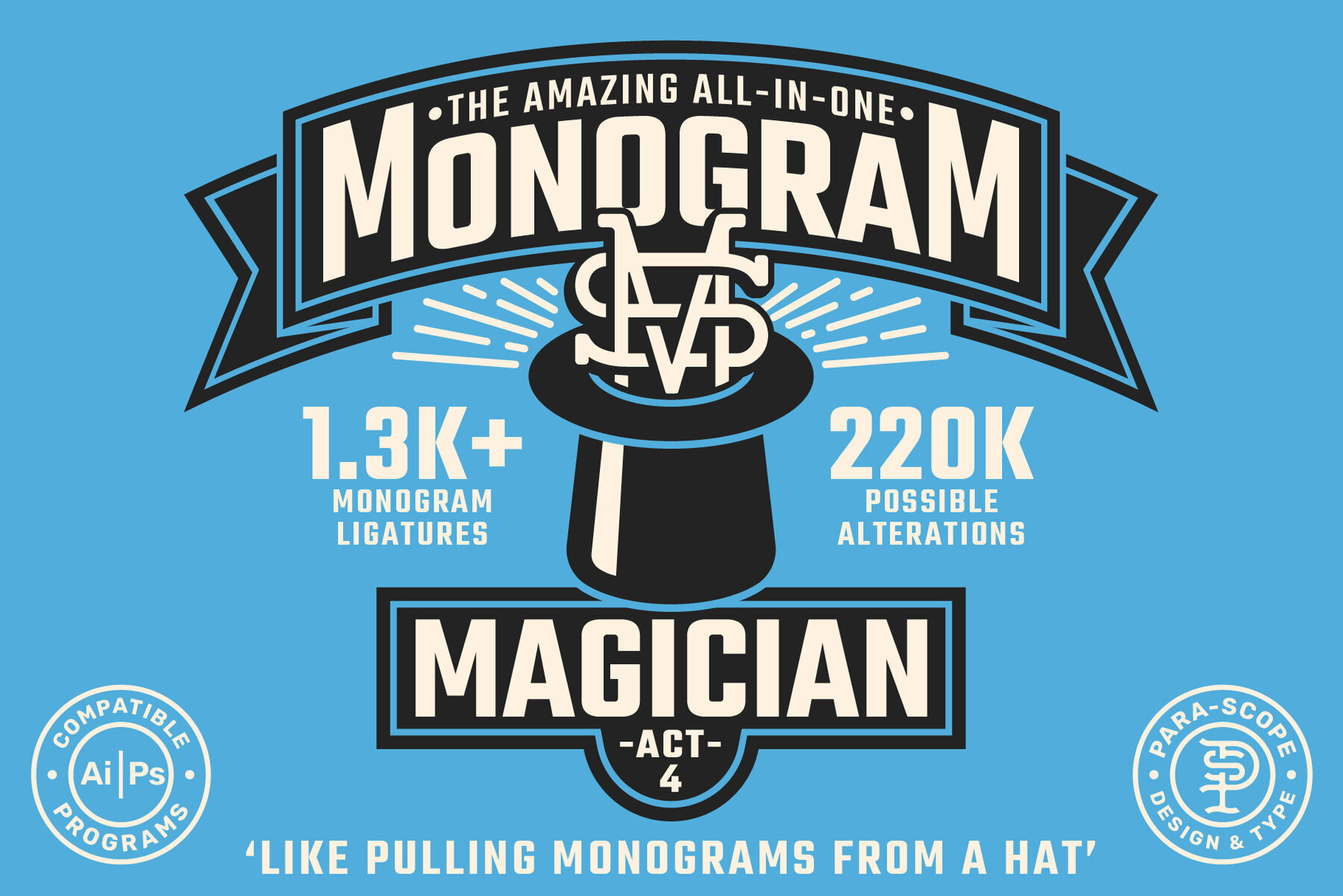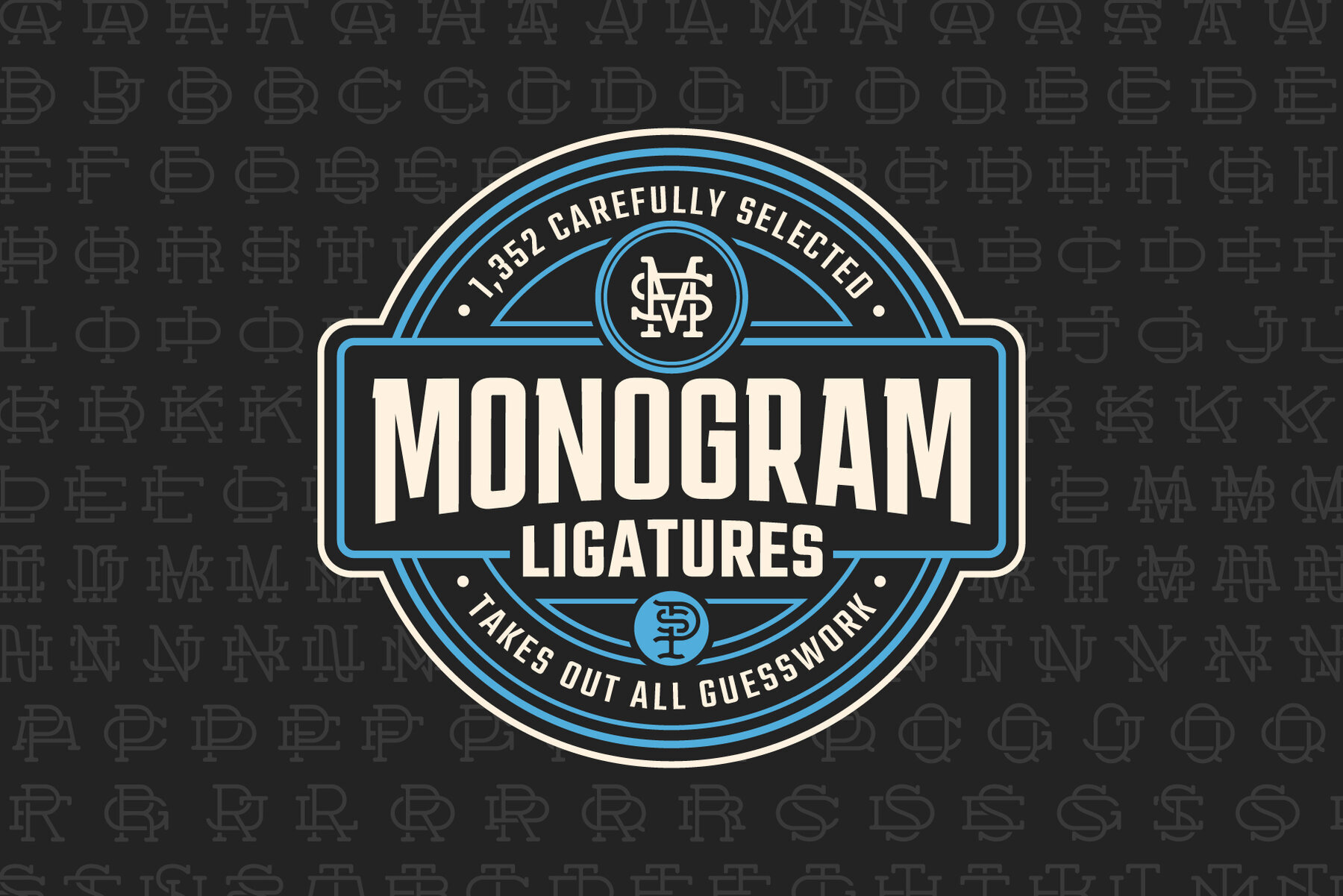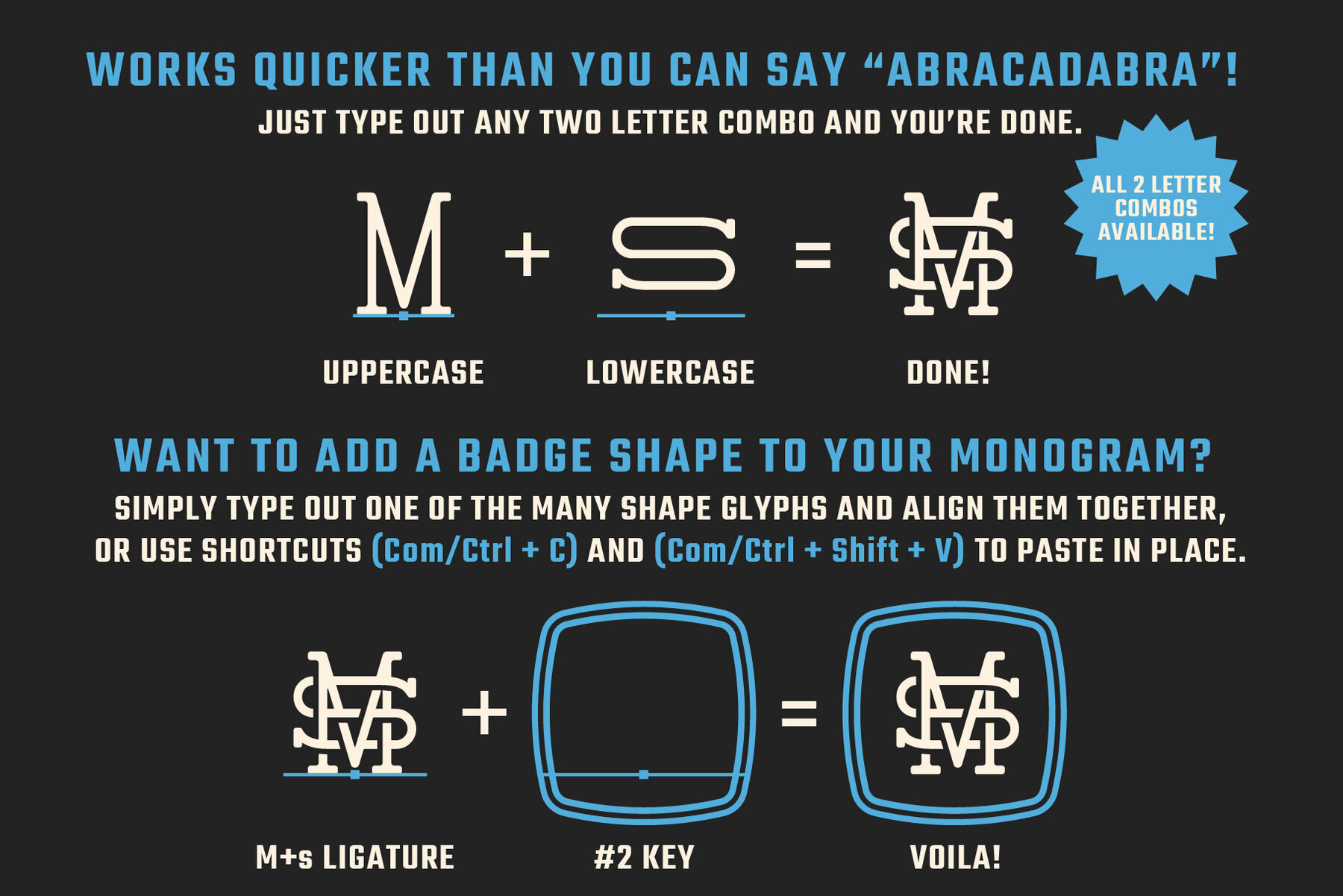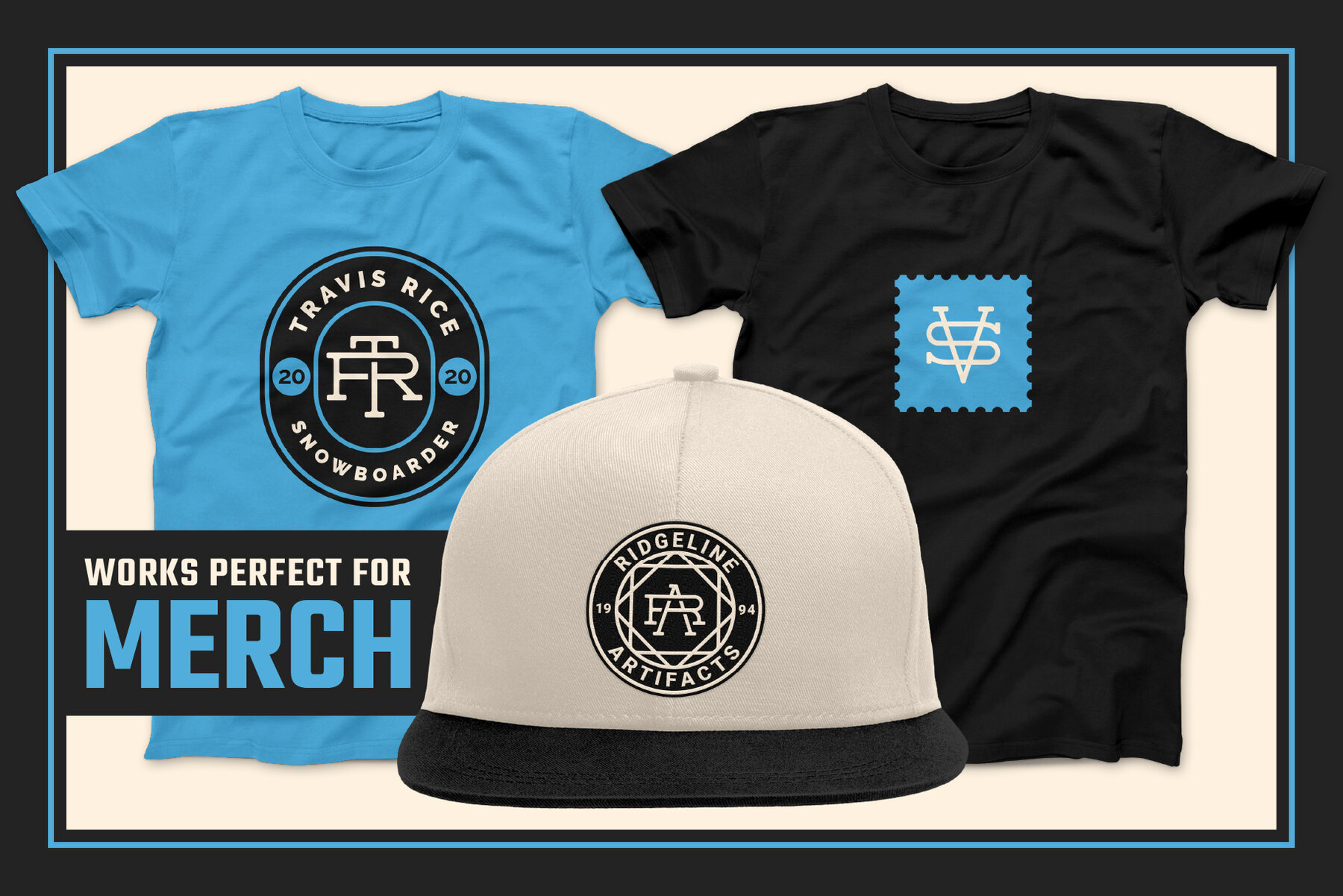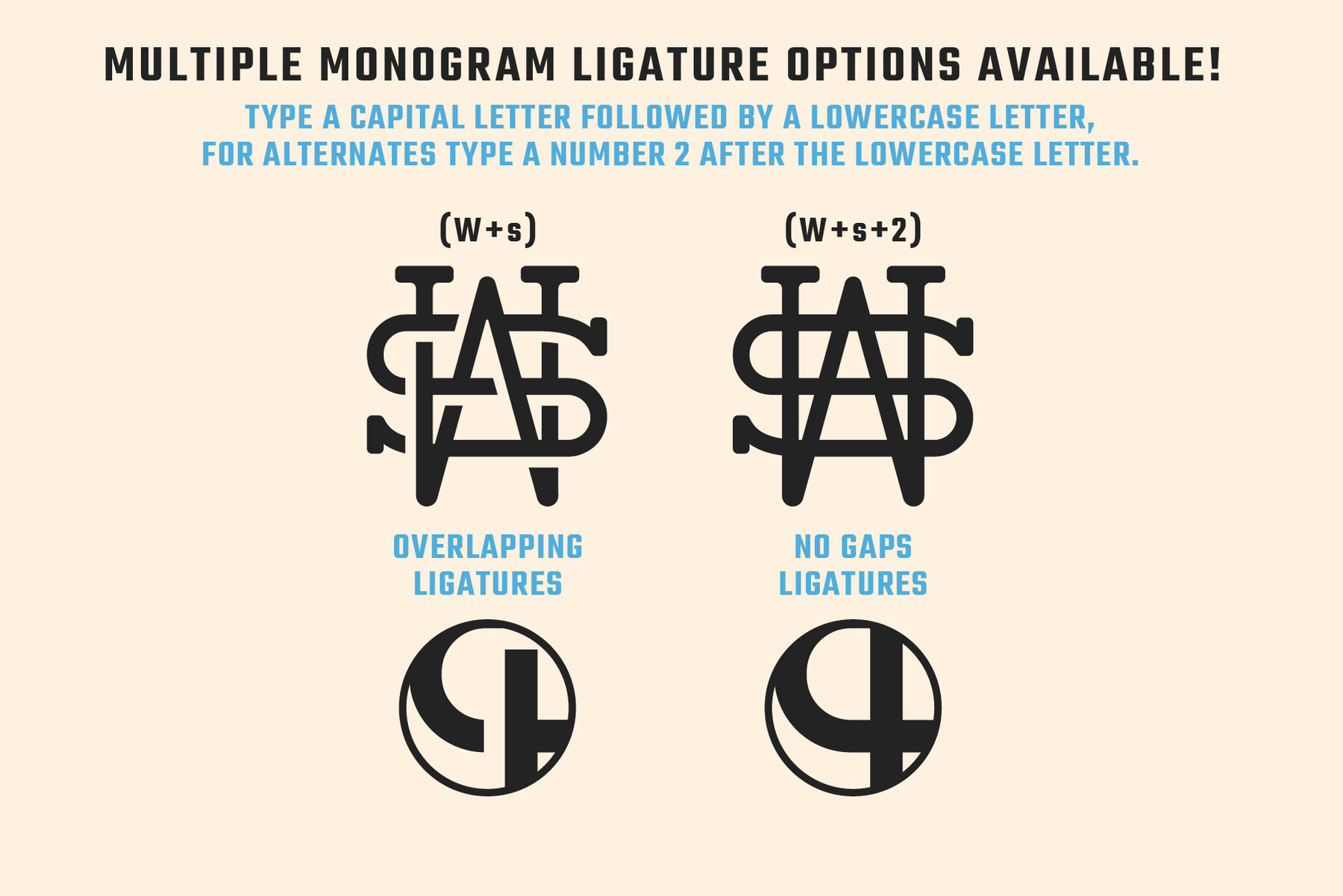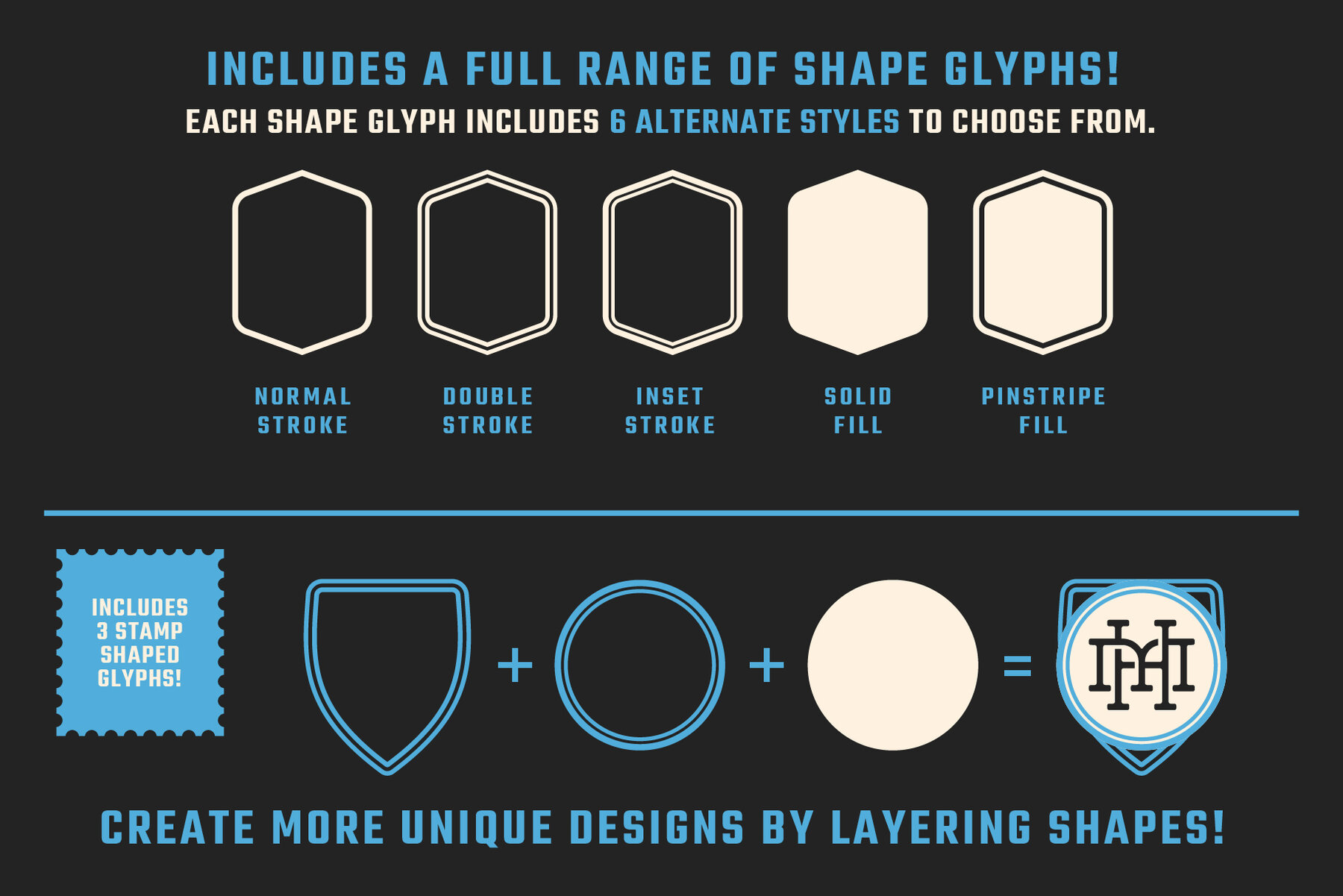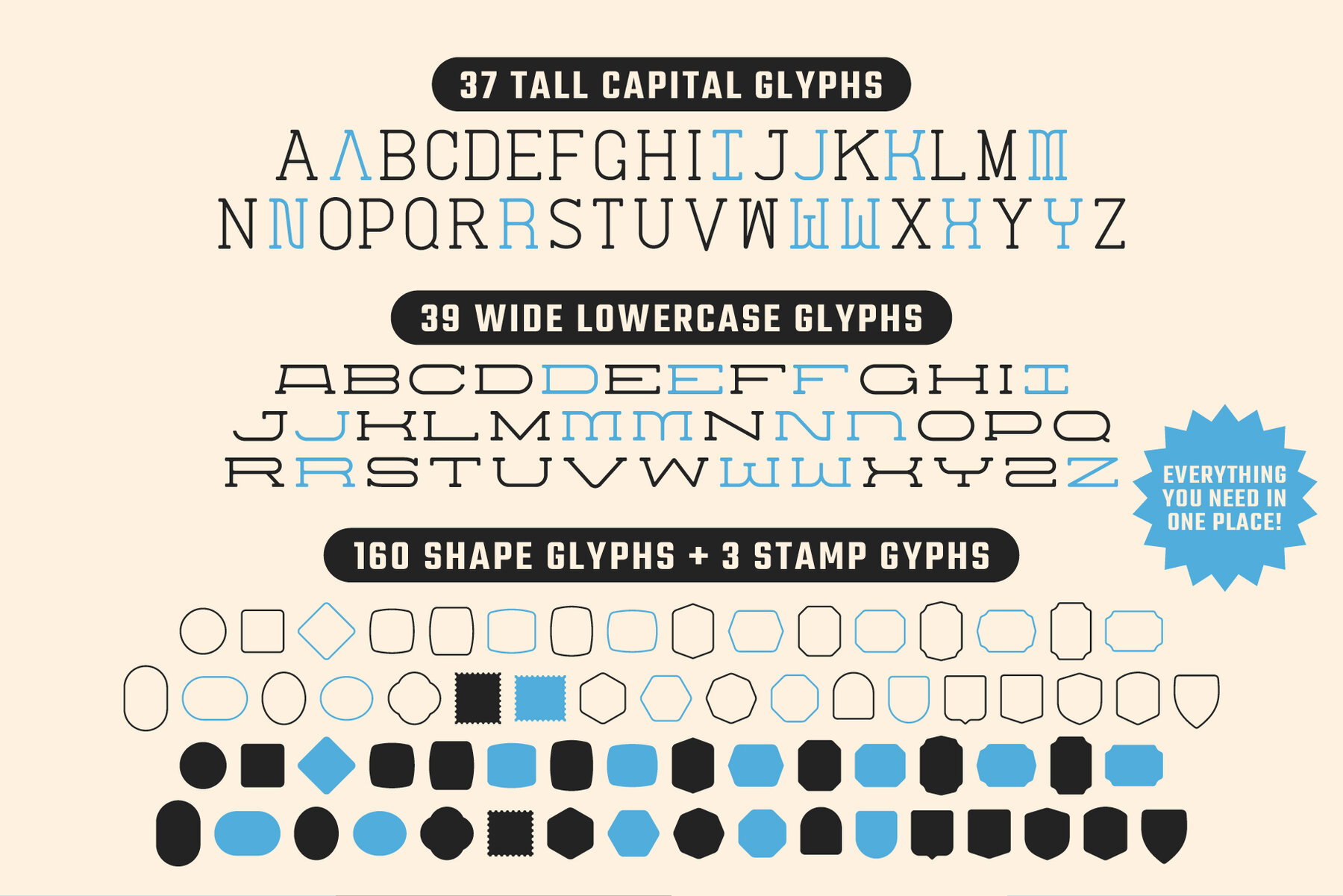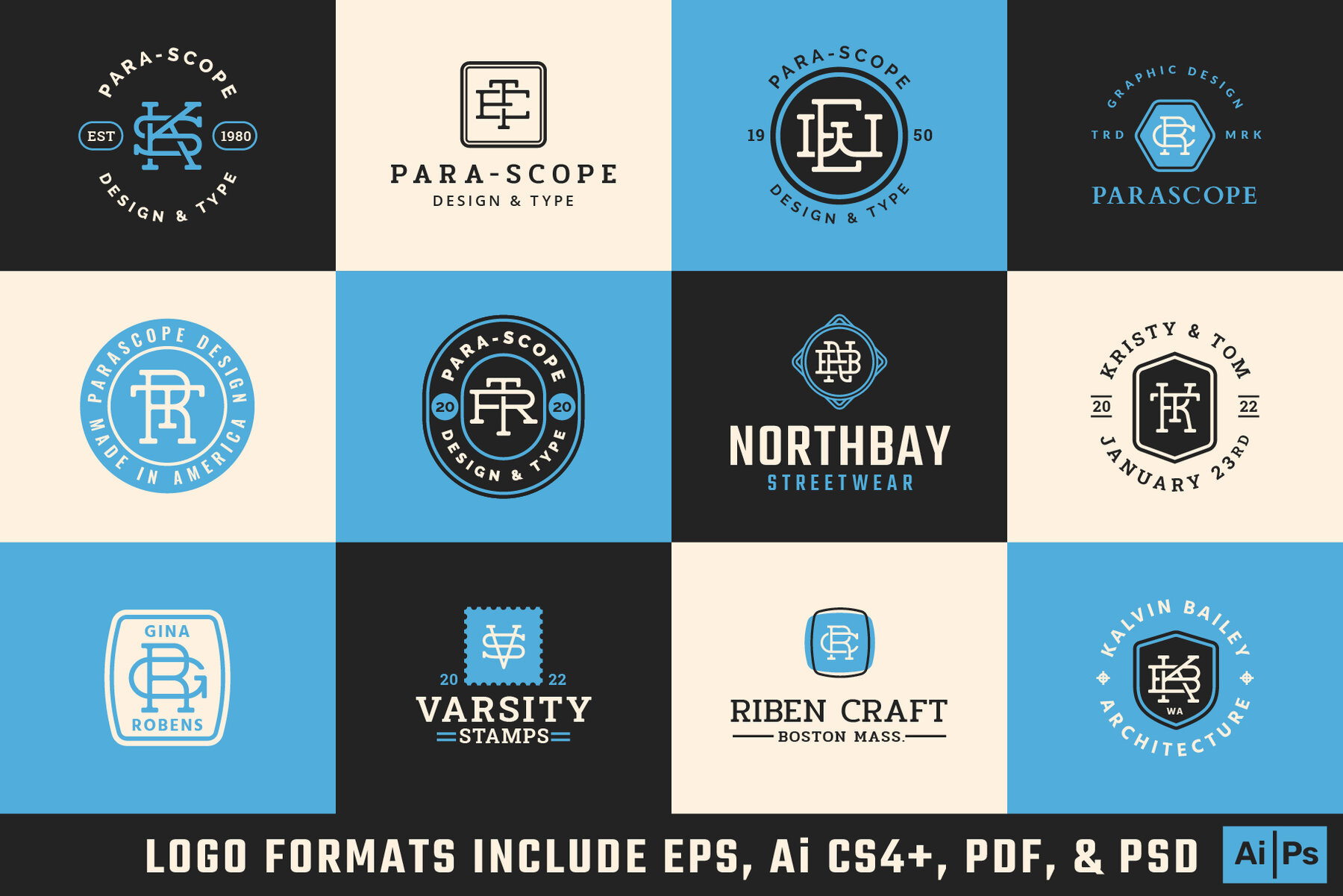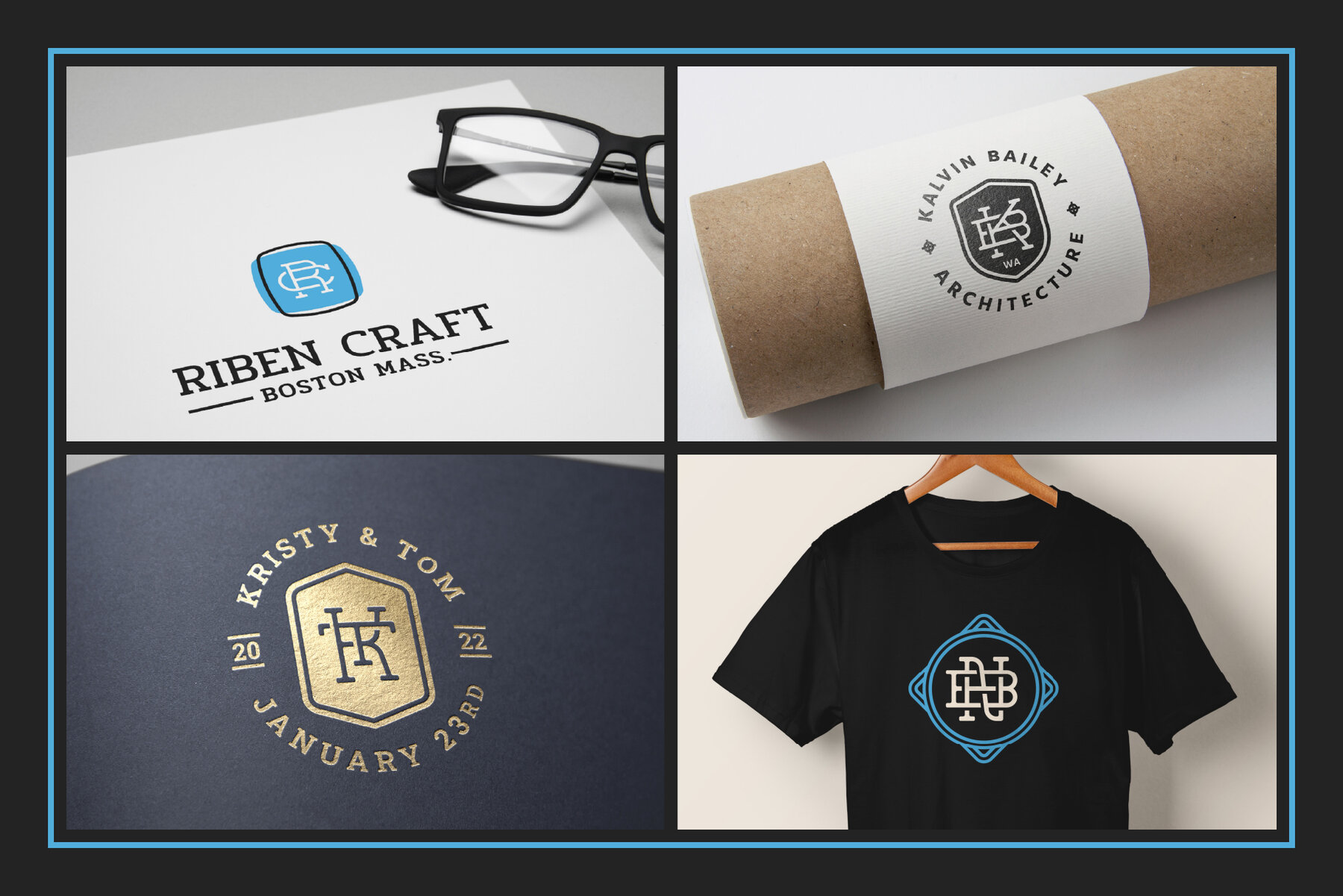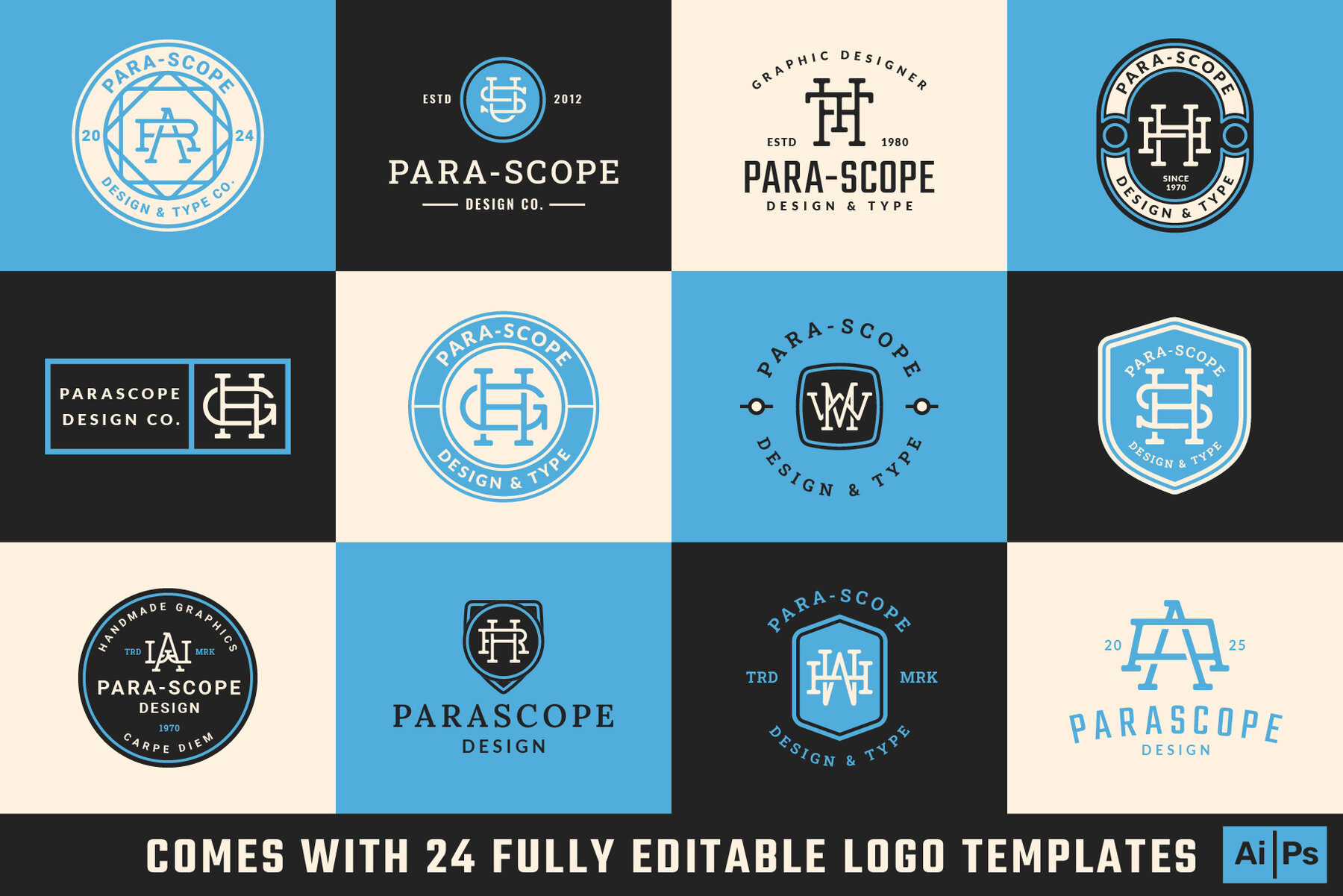
Monogram Magician Act 4
Making monograms just got much quicker and easier. You won’t need any magic school training to start pulling monograms out of hats in seconds rather than minutes.
Simply type out any two-letter combo starting with an uppercase letter followed by a lowercase letter, and “Shazam!” you’ve got a monogram. Give it a try in the text preview window above! Want to add a shape to your monogram then just type one out using any of the symbol or number keys on your keyboard. Having everything you need in one place keeps you focused on creating rather than searching.
Countless hours were put into selecting the best ligature combinations for any possible two letters combination you could want so you don’t have to waste any time figuring it out yourself. Monogram Magician Act 4 includes 1,352 monogram ligatures to choose from plus another 160 Shape Glyphs and 3 Stamp Glyphs.